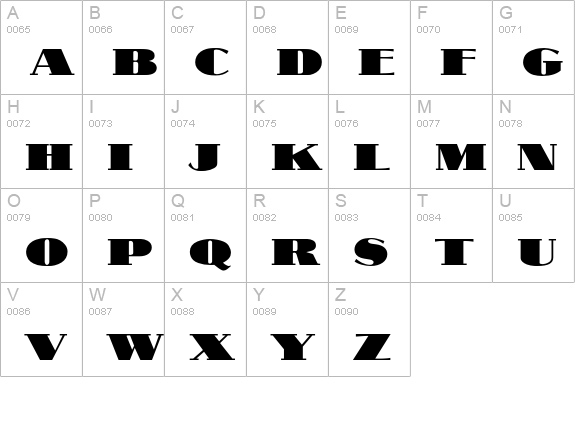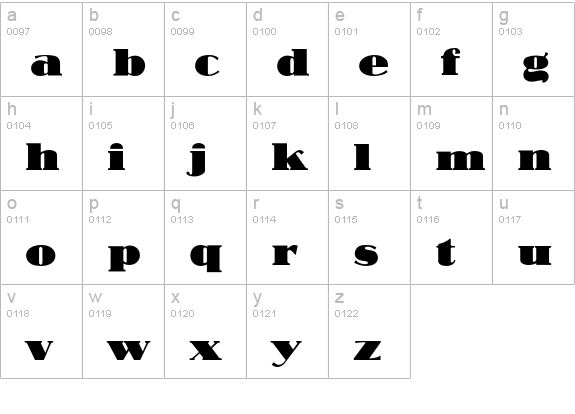
Casting Font Details
Casting font is a versatile and stylish typeface that exudes elegance and sophistication. With its clean lines and modern aesthetic, this font is perfect for a wide range of design projects, from branding to packaging to editorial design. The sleek and contemporary look of Casting font makes it a popular choice for designers looking to add a touch of class to their work. Best of all, Casting font is available for free download at FontsMarket.com. This means that you can easily access this beautiful typeface and incorporate it into your projects without any cost. Whether you're a seasoned designer or just starting out, Casting font is a fantastic addition to your font collection. Download it today and see how it can elevate your designs to the next level.